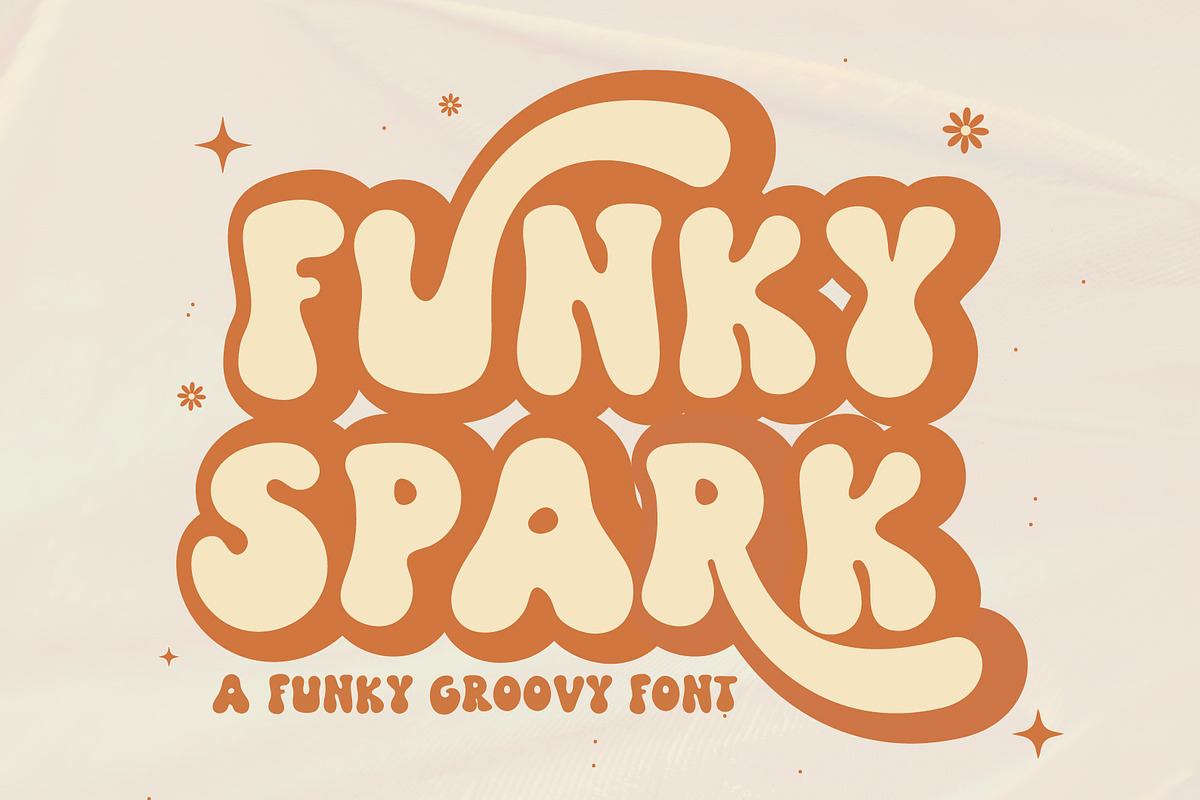
Funky Spark A Funky Groovy Font Free Download
Please note, you must purchase this font for commercial use. However, you can easily download Funky Spark A Funky Groovy Font Free Download for personal use and testing purposes. Funky Spark A Funky Groovy Font is a bold and playful typeface designed to add a retro, fun vibe to your projects. Perfect for music festivals, event posters, logos, and social media designs, this font captures the essence of the funky and groovy eras with its unique, expressive letterforms. Whether you're working on a vibrant brand identity or a playful design, Funky Spark A Funky Groovy Font Free Download brings energy and excitement to any creative project. Download Funky Spark A Funky Groovy Font Free Download today and explore its creative potential before opting for a commercial license.